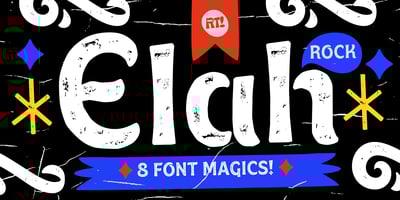
Elah Rock Font Family was designed by Rodrigo Araya Salas, Bruno Jara Ahumada and published by RodrigoTypo. Elah Rock contains 8 styles and family package options. “Elah Rock” is a new typeface designed especially for headlines with a focus on the “Rough” concept. This font conveys a feeling of rawness and energy, perfect for capturing the viewer’s attention and creating visual impact.